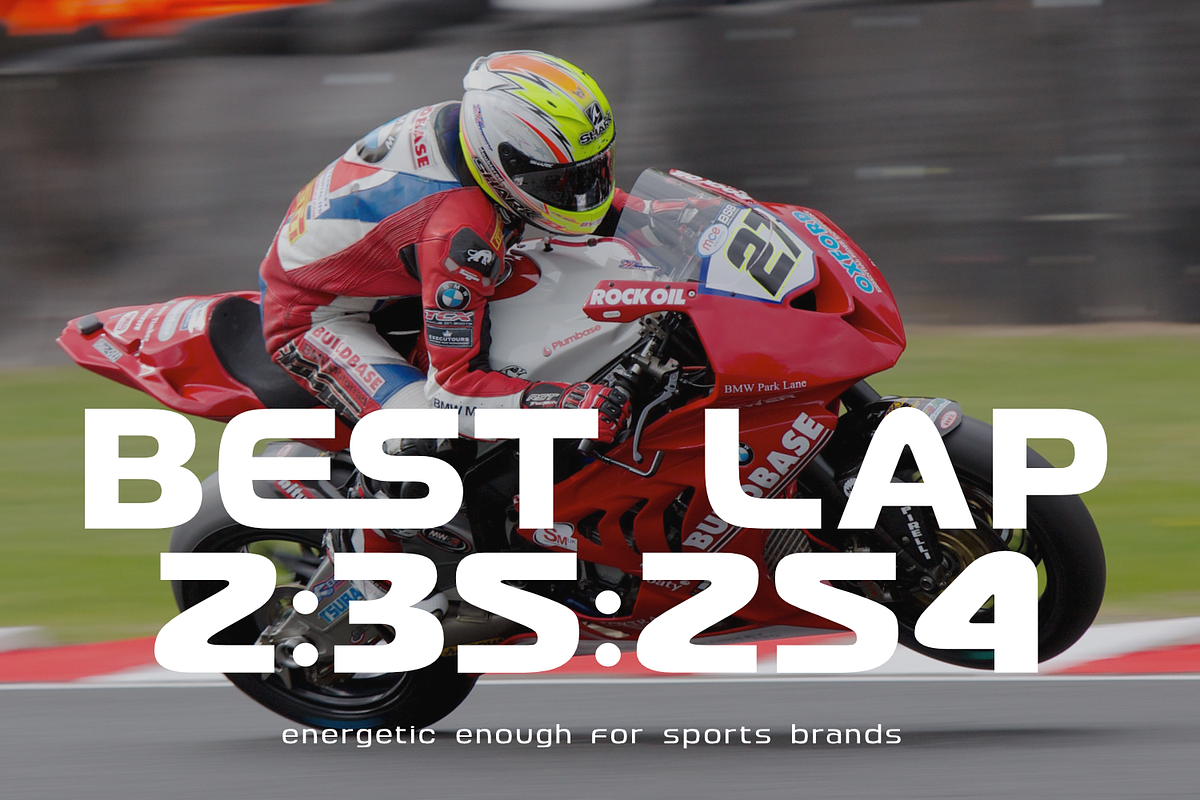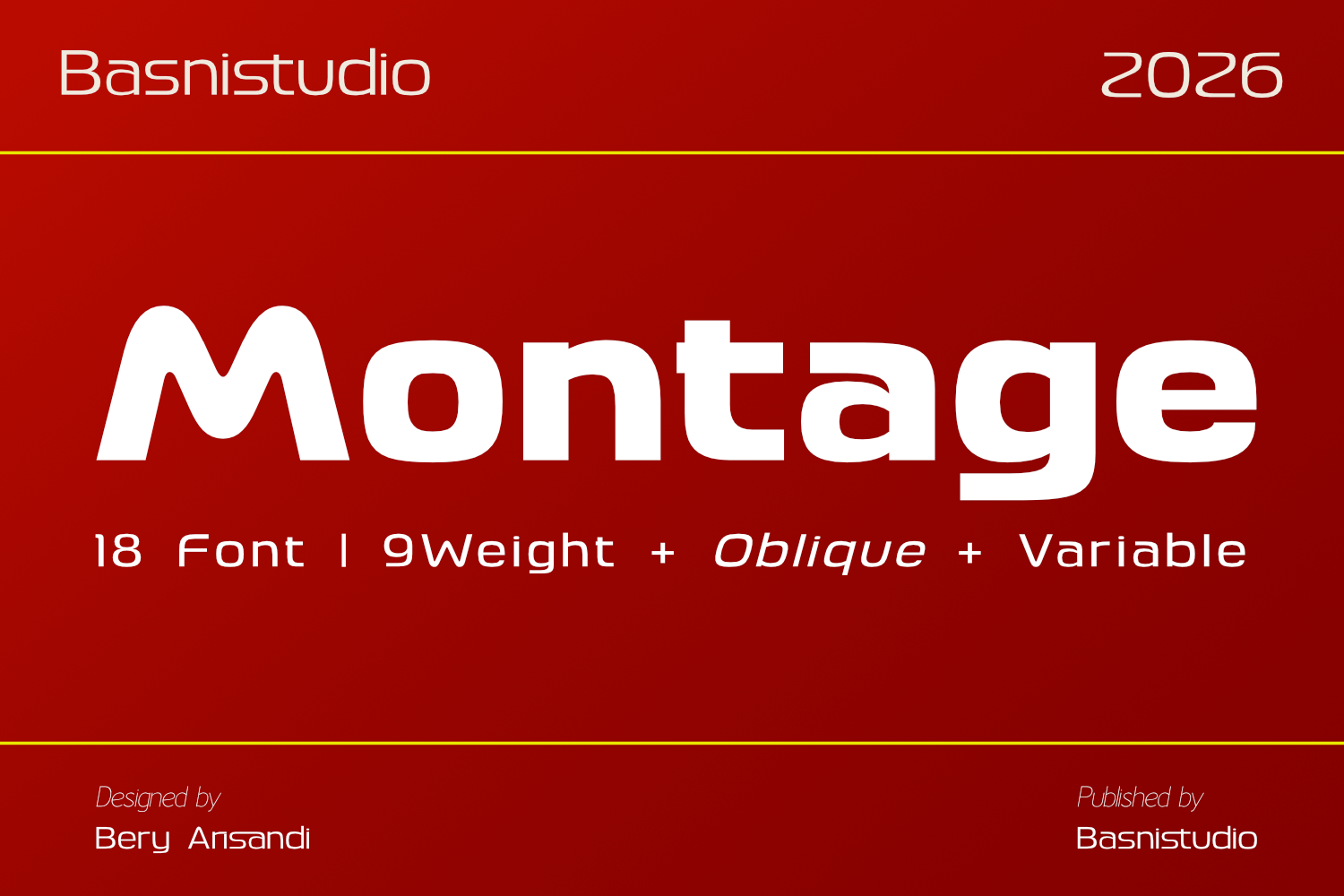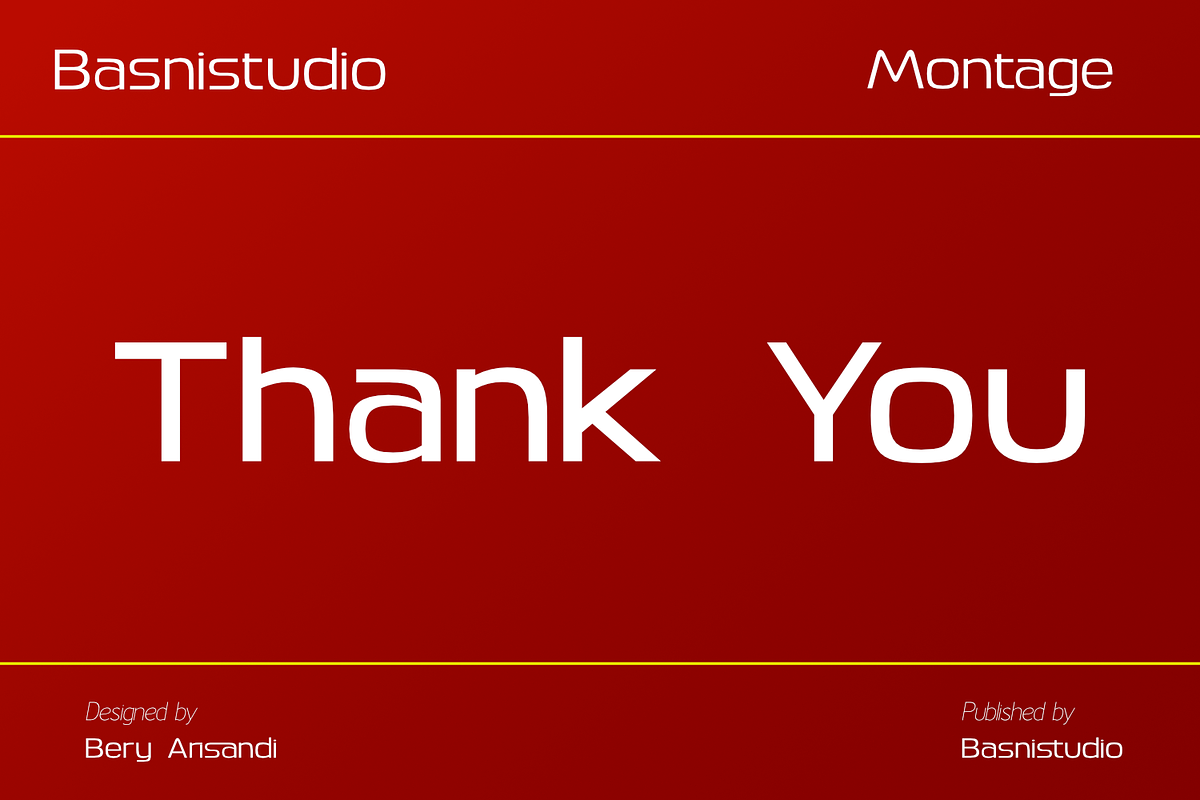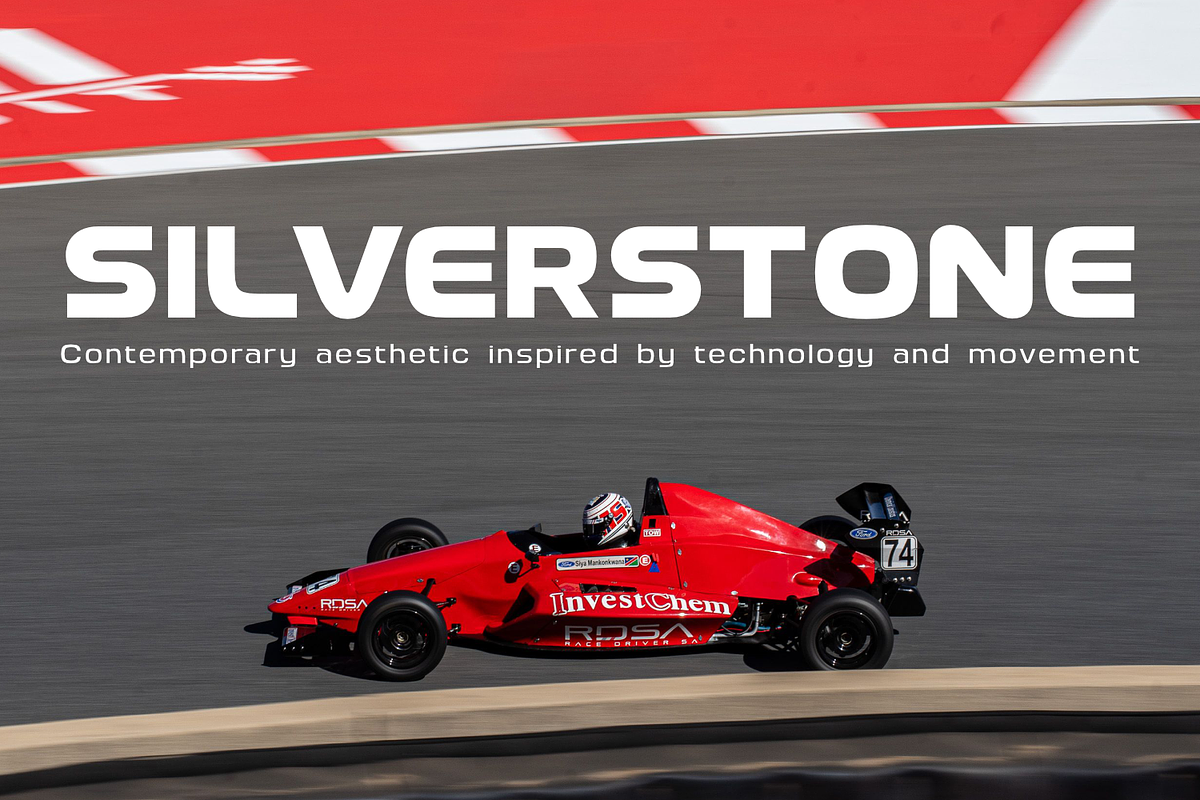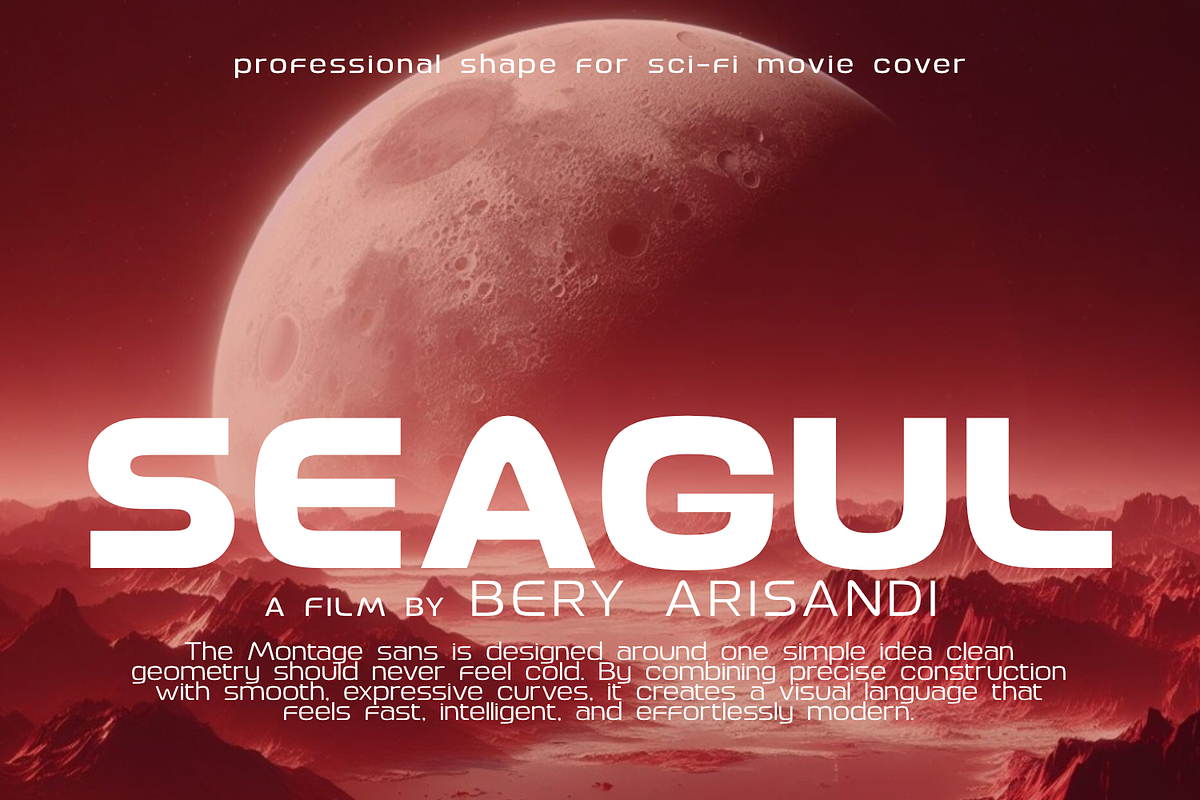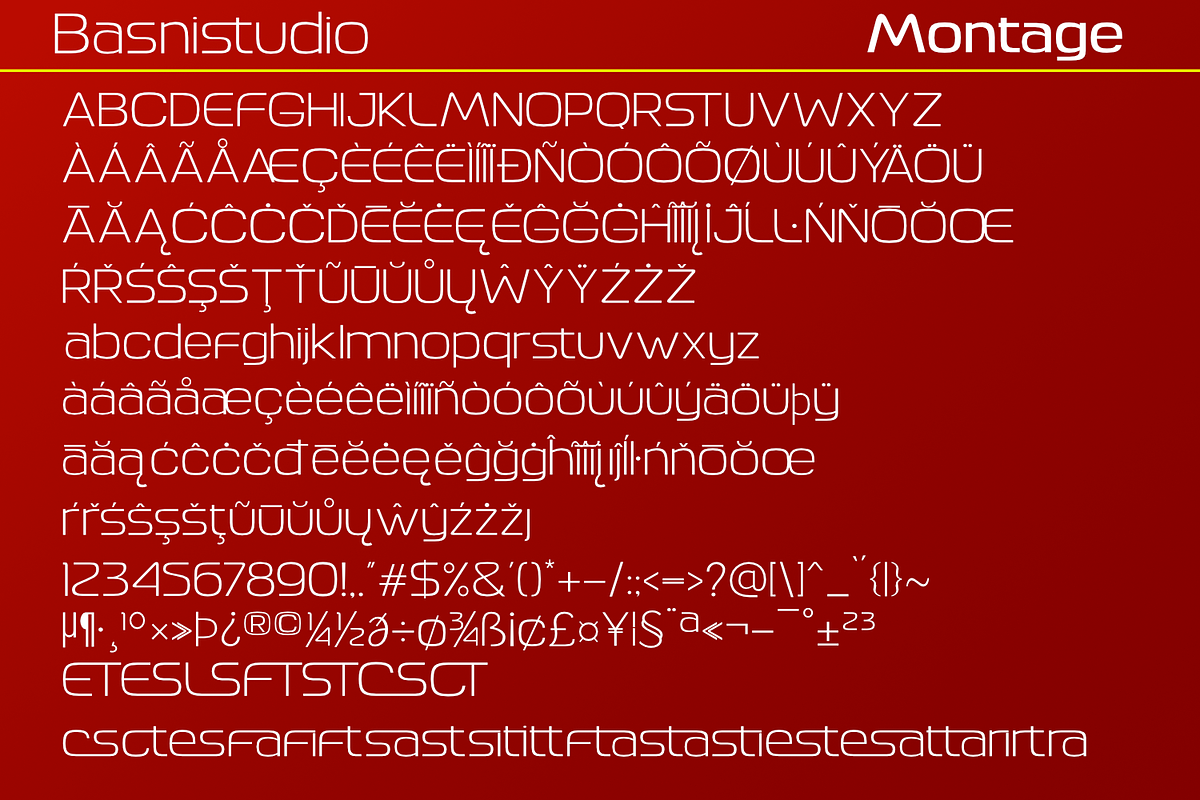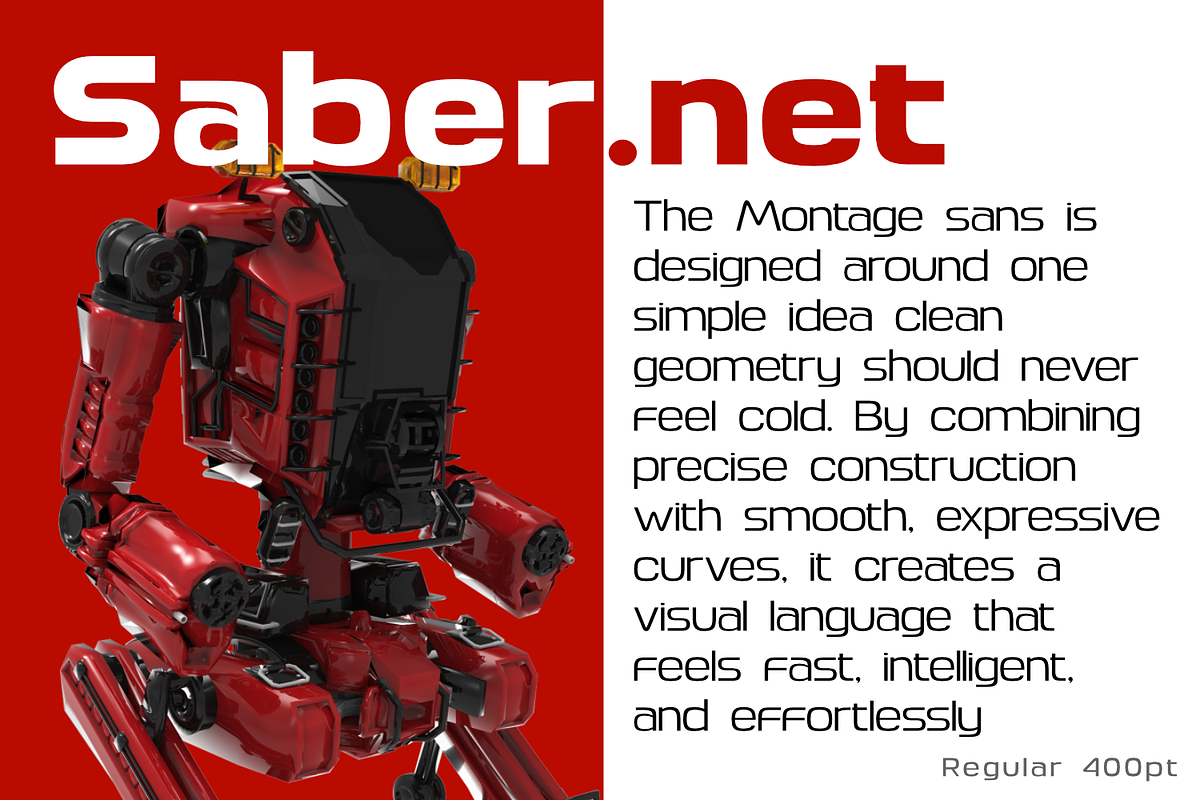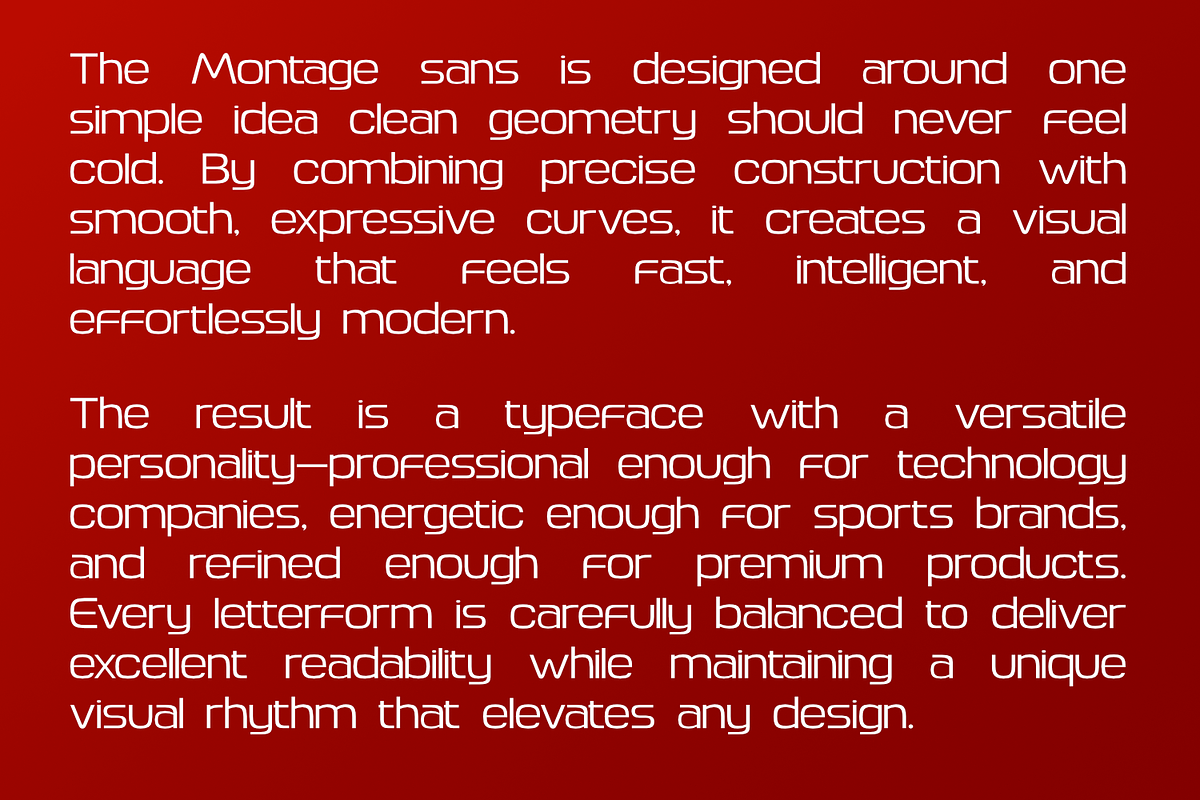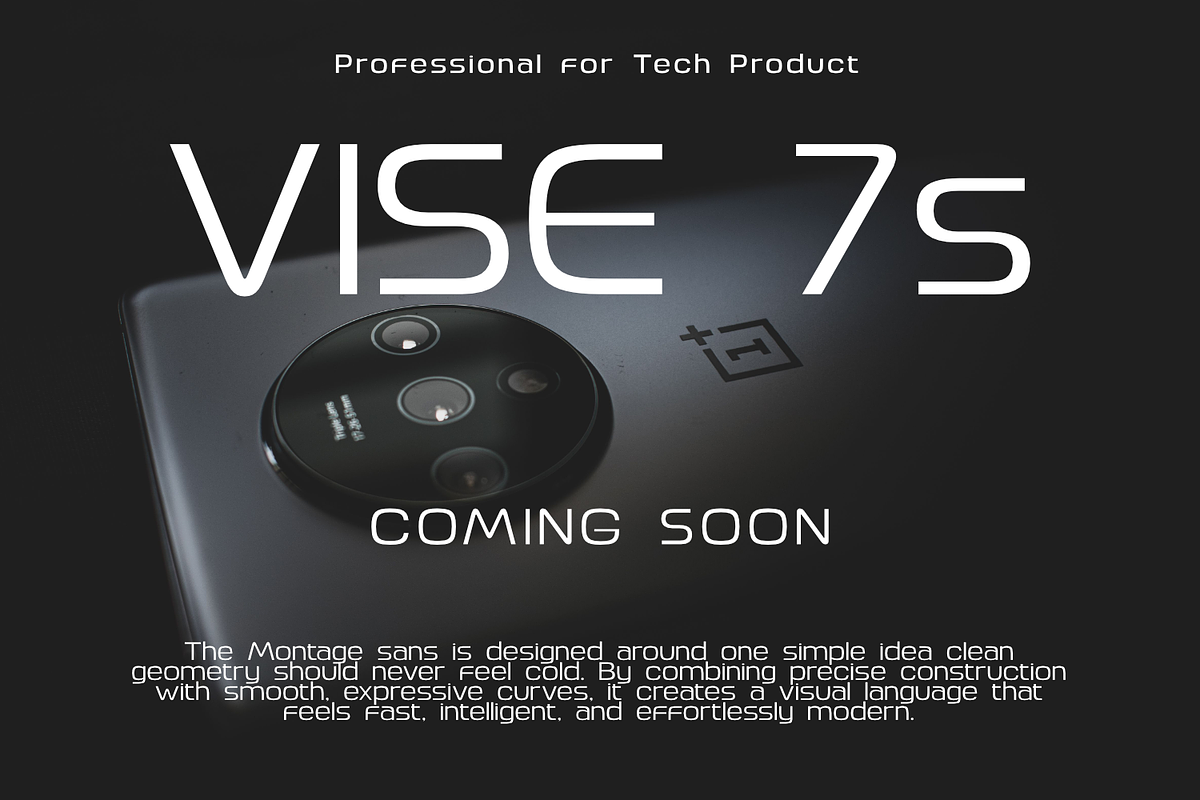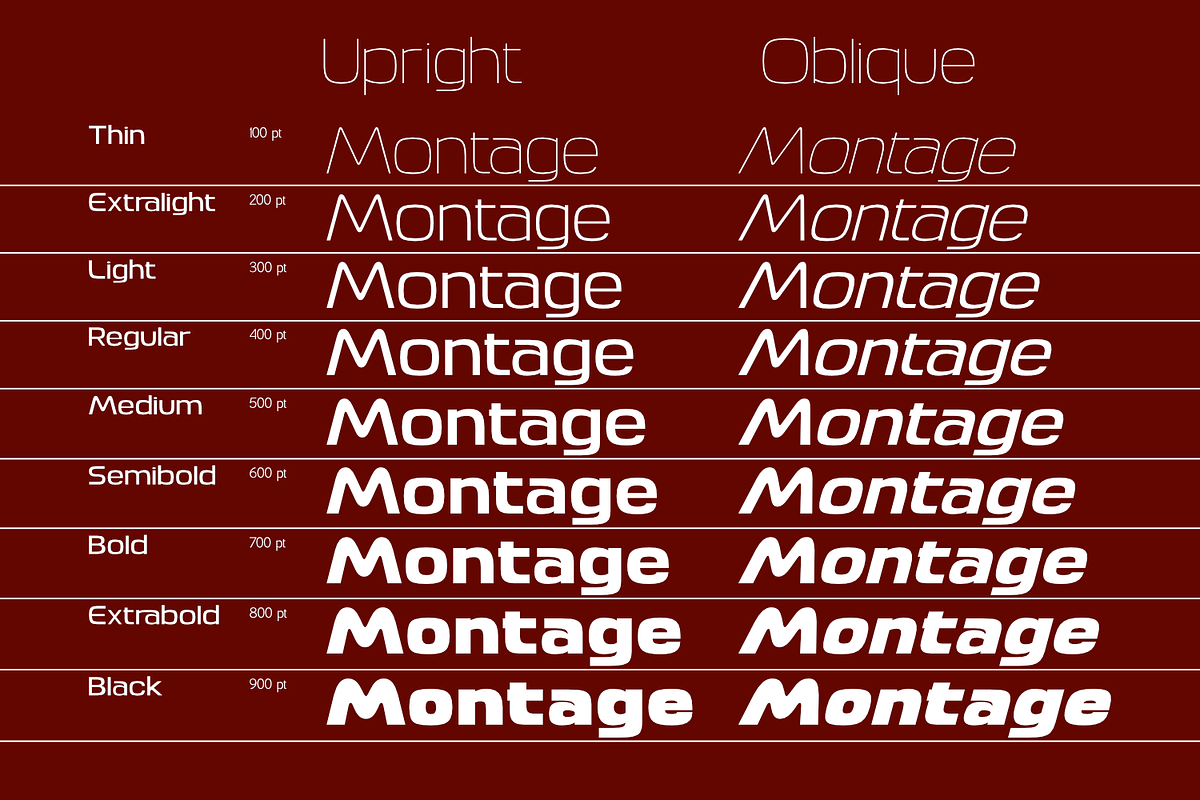
Montage – Sans Serif Font
Montage Sans
This contemporary sans serif is designed around one simple idea: clean geometry should never feel cold. By combining precise construction with smooth, expressive curves, it creates a visual language that feels fast, intelligent, and effortlessly modern.
The result is a typeface with a versatile personality—professional enough for technology companies, energetic enough for sports brands, and refined enough for premium products. Every letterform is carefully balanced to deliver excellent readability while maintaining a unique visual rhythm that elevates any design.
From startup identities to global campaigns, this font adapts seamlessly across print and digital environments. Whether it’s a striking logo, a bold website headline, an intuitive interface, or sophisticated packaging, it communicates innovation without sacrificing clarity.
More than just a typeface, it’s a design tool for brands that want to appear progressive, reliable, and built for the future.